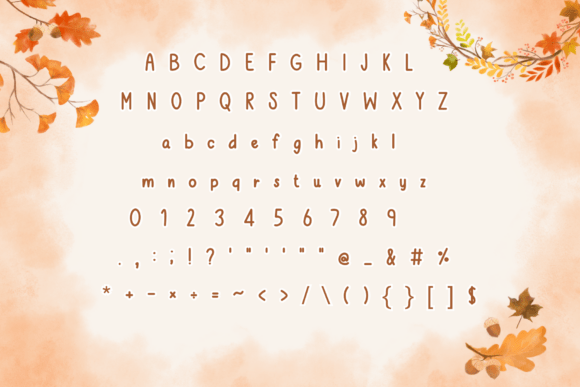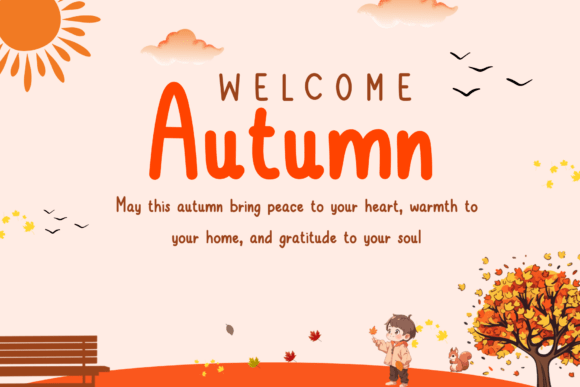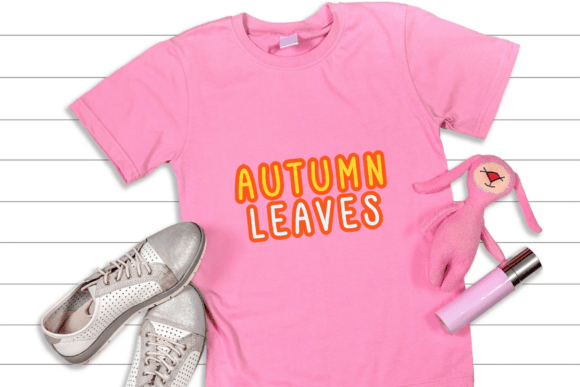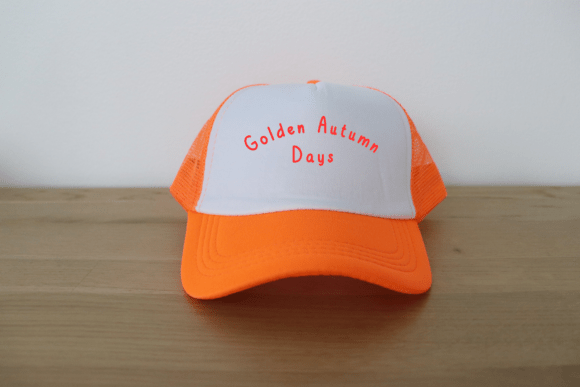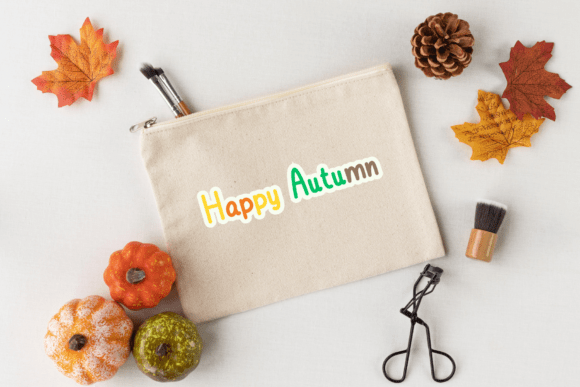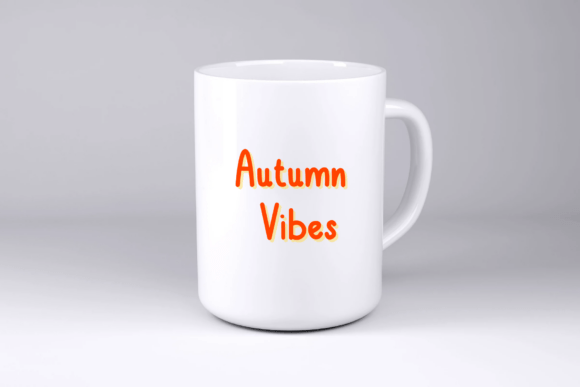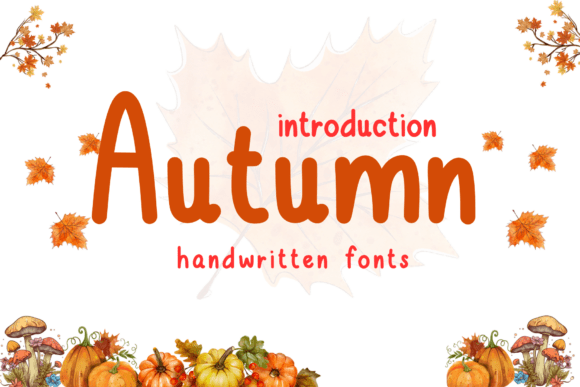
Cozy Up with Autumn Leaves Font: A Designer’s Best Friend for Fall Projects
I’ll never forget the moment I was working on a fall-themed project for a client, and I was struggling to find the perfect font. The project needed something warm, friendly, and robust – a font that could capture the cozy feeling of the fall season. That’s when I stumbled upon the Autumn Leaves Font, and it was love at first sight! ✨ In this article, I’ll share my experience with this beautiful font, its features, and how to make the most of it in your designs.
A First Impression: What Makes Autumn Leaves Font So Special
The Autumn Leaves Font is a handwritten font that perfectly embodies the spirit of fall. Its thick, rounded forms, slightly organic edges, and cheerful personality make it highly approachable and legible. This font is excellent for seasonal branding, holiday crafts, children’s books, school materials, and any project needing a comforting, fun, and irresistibly autumnal aesthetic.
- ✅ Warm and friendly vibe that’s perfect for fall projects
- ✨ Highly legible, even at small sizes
- 🎉 Excellent for children’s books, school materials, and holiday crafts
While I absolutely love the Autumn Leaves Font, there are a few things to keep in mind: ⚠️ It may not be the best choice for very formal or corporate projects, as it’s quite playful. 🤔 Some users might find the font a bit too bold for their taste.
Exploring OpenType Features: Glyphs, Stylistic Alternates, and More
One of the best things about the Autumn Leaves Font is its OpenType features. With a range of glyphs, stylistic alternates, and more, you can customize your text to fit your design perfectly. Take some time to explore the font’s features and experiment with different combinations to find the perfect look for your project.
A Brief Backstory: The Inspiration Behind Autumn Leaves Font
The Autumn Leaves Font was designed with the fall season in mind. The creator wanted to capture the warmth, coziness, and playfulness of this special time of year. With its thick, rounded forms and cheerful personality, this font is sure to bring a touch of autumn magic to your designs.
Q: What type of projects is Autumn Leaves Font best suited for?
A: Autumn Leaves Font is perfect for seasonal branding, holiday crafts, children’s books, school materials, and any project needing a comforting, fun, and autumnal aesthetic.
Q: Is Autumn Leaves Font available in different weights or styles?
A: Currently, Autumn Leaves Font is available in a single weight. However, the font’s versatility and range of OpenType features make it easy to customize and adapt to different design needs.